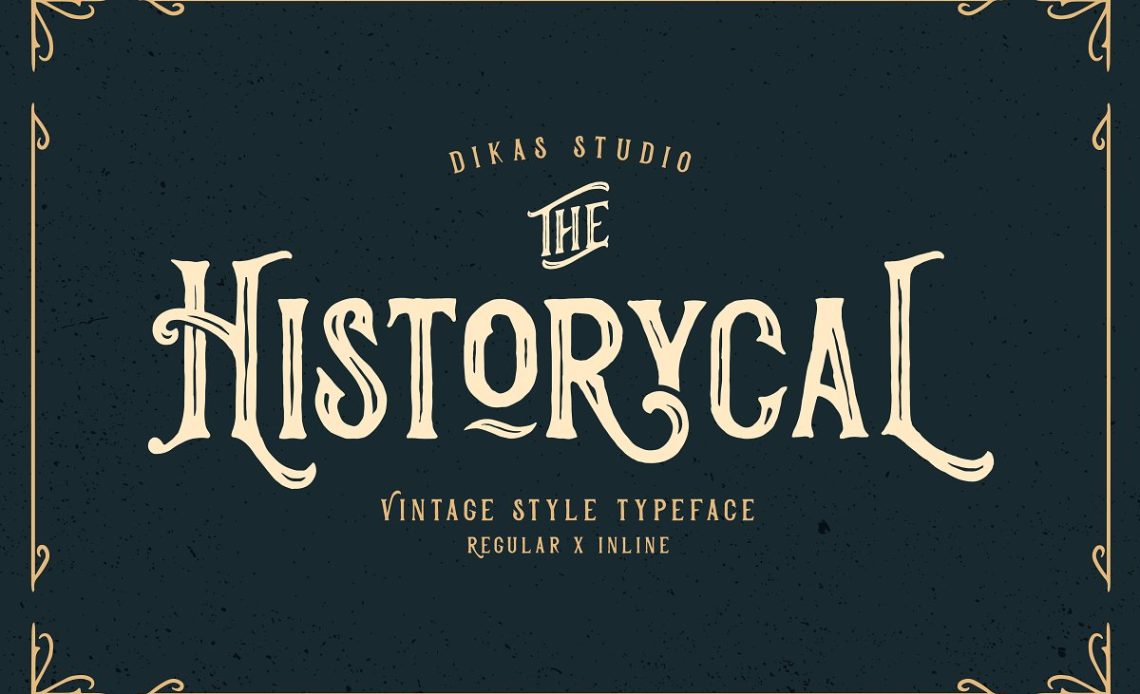
Introducing Historycal - 2 Font Styles, the best fonts for label design, created by the talented Andika Setiawan. With two styles to choose from, Clean & Inline, this font family is the perfect combination of vintage and handcrafted design. The Opentype Feature provides you with a wide range of characters, making it easy to create stunning designs that reflect your personal style.
Historycal is suitable for a wide range of design applications such as vintage designs, branding, logos, product packaging, invitations, quotes, t-shirts, label posters, and much more. The font features uppercase and lowercase letters, punctuations, and numbers, as well as a multilingual language option, alternate characters, ligatures, stylistic sets, catchwords, and even a free vector.
Whether you're a professional graphic designer or just starting, this font family is a must-have for your toolkit. With its elegant and versatile design, it's sure to elevate your work to the next level.